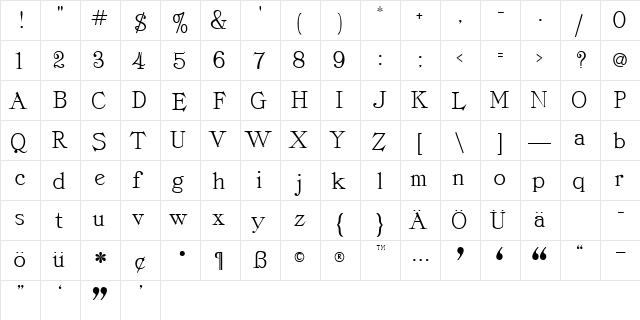
ClassicaRoman.fog fog Font Preview
ClassicaRoman.fog fog
Design Context for ClassicaRoman.fog Typeface
ClassicaRoman.fog has the warm character of retro typography — evoking diners, record sleeves, and the golden age of print advertising.
Font Pairing: Combine ClassicaRoman.fog with a simple slab or neutral sans — period-accurate companions reinforce the vintage feel without competing for attention.
Pro Tip: Use ClassicaRoman.fog for headlines and pull quotes rather than body copy — its personality is best appreciated in short, focused bursts.